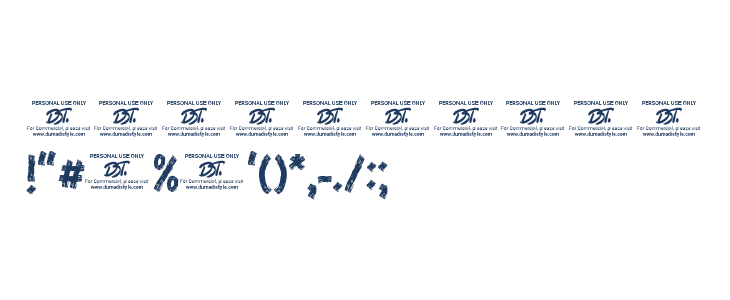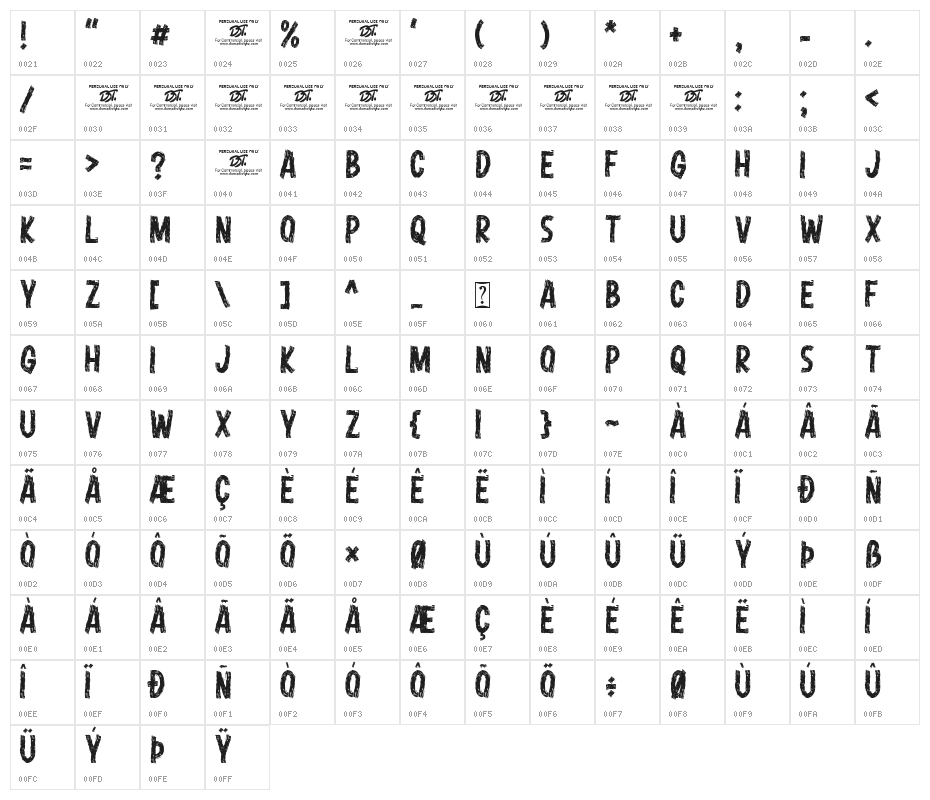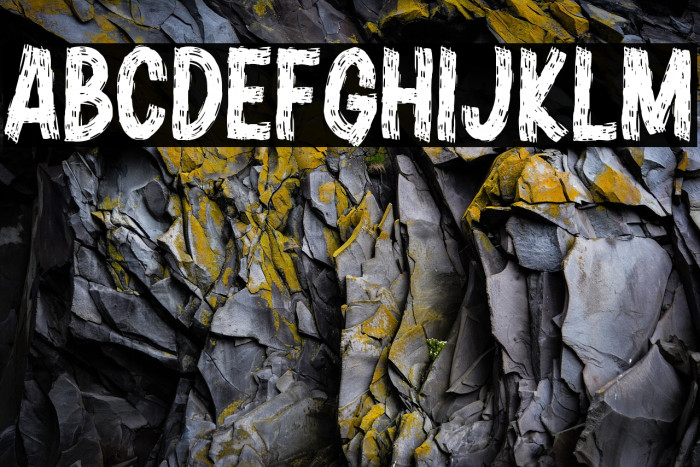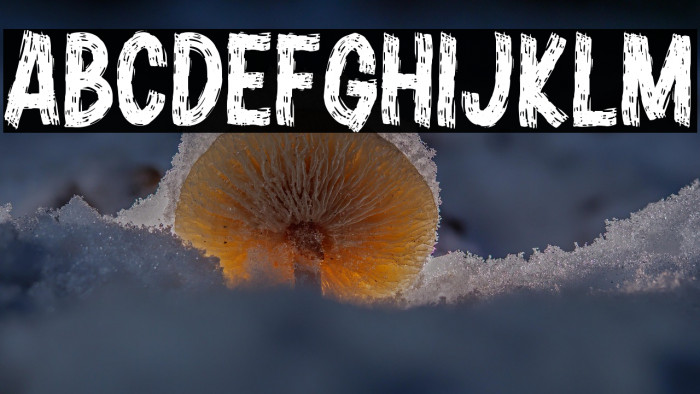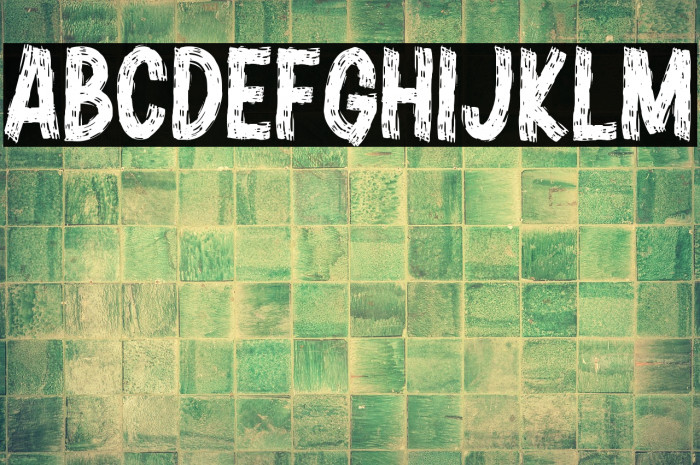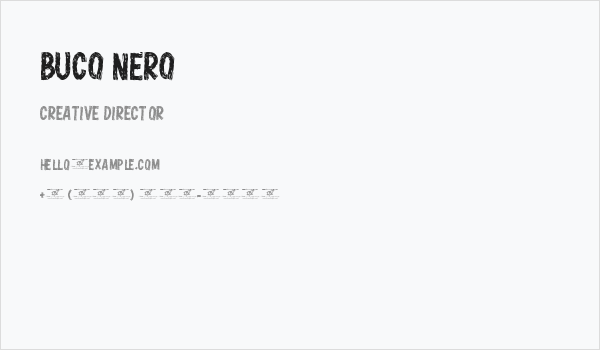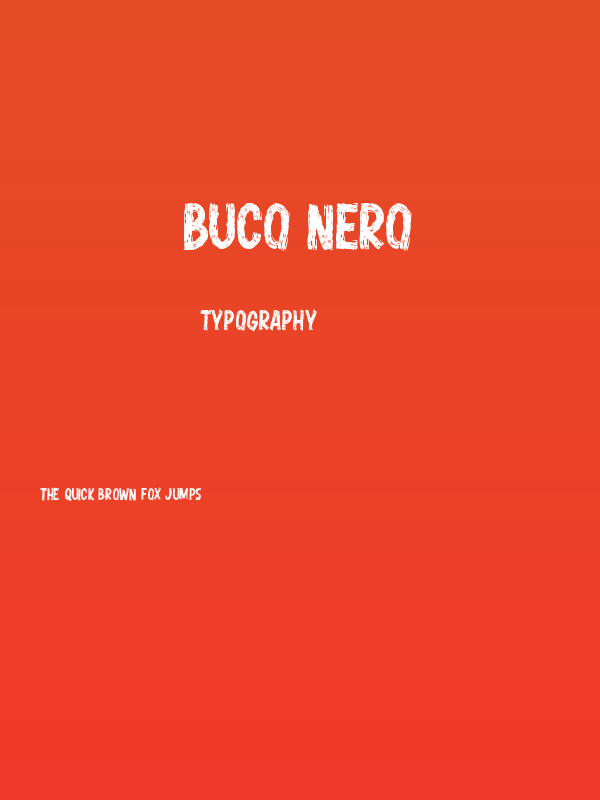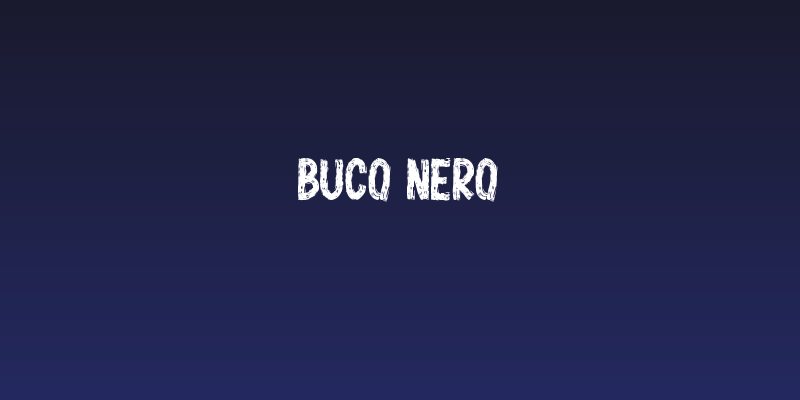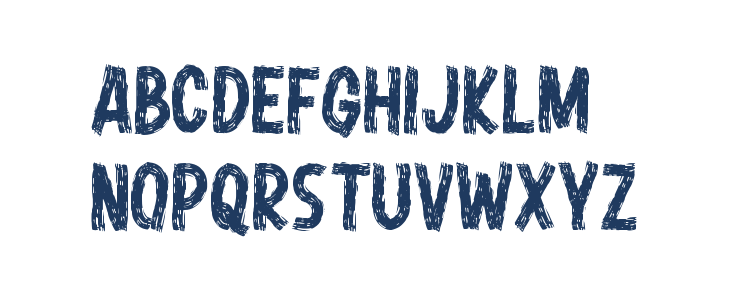
Buco Nero Font
Buco Nero Description
This font features a bold, textured style with a hand-drawn appearance, giving it a dynamic and energetic feel. The characters are uppercase and have a rough, sketch-like quality, with irregular edges that add to its unique charm. The strokes are thick and uneven, creating a sense of movement and spontaneity. This font is perfect for projects that require a bold statement or an artistic touch. Its distinctive look makes it suitable for creative designs, posters, and branding that aim to stand out.
| Proposed Projects | Ideal for posters, artistic designs, branding, and any project needing a bold, creative touch. |